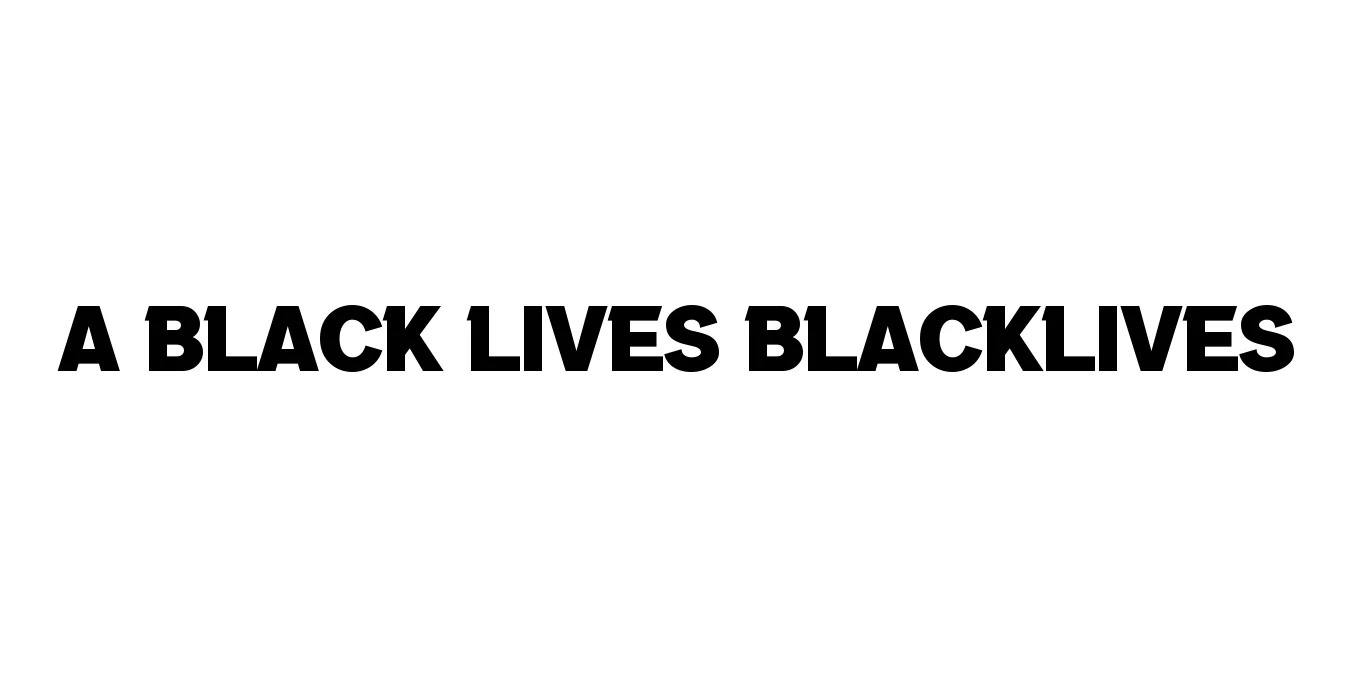
a Black Lives BlackLives
Designed by Tepid Monkey
a Black Lives BlackLives is a powerful and evocative display typeface inspired by the visual identity of global social justice movements. Designed to command attention, the font features heavy, thick strokes and a minimalist aesthetic that prioritizes readability and impact. It has become a symbolic choice for designers working on projects related to civil rights, activism, and community organization, reflecting a sense of urgency and strength through its bold, blocky architecture.
Technically, the font is categorized as a heavy sans-serif display face. Its lack of decorative flourishes ensures that the message remains the focal point, making it highly effective for large-scale print applications like protest signs, banners, and billboard headlines. Whether used in digital media or physical print, the font maintains its integrity across various platforms, serving as a reliable tool for creating high-contrast, meaningful visual communications.
Perfect for grabbing attention in news articles and blog headers.
The bold weight makes it highly visible from a distance.
Ideal for creating impactful graphic posts on Instagram or Twitter.
Works exceptionally well for T-shirts and merchandise related to advocacy.
Suited for large format prints where impact is prioritized over subtlety.